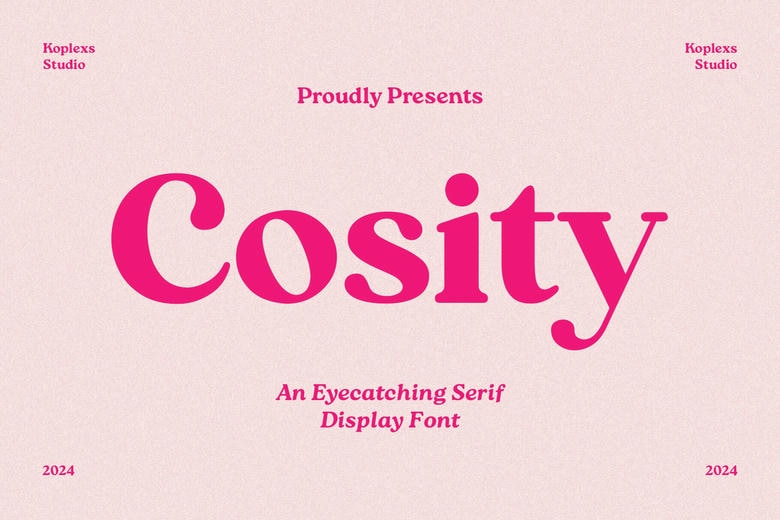
Cosity Font
Cosity is a lovely and classy Display Serif Font lacking nothing in style and the tinge of contemporary outlook. Perfect for projects that demand a touch of class, Cosity offers two versatile styles: Classic and Light; Regular and Italic, which makes it perfect for numerous types of designs.
Cosity Display Serif Font